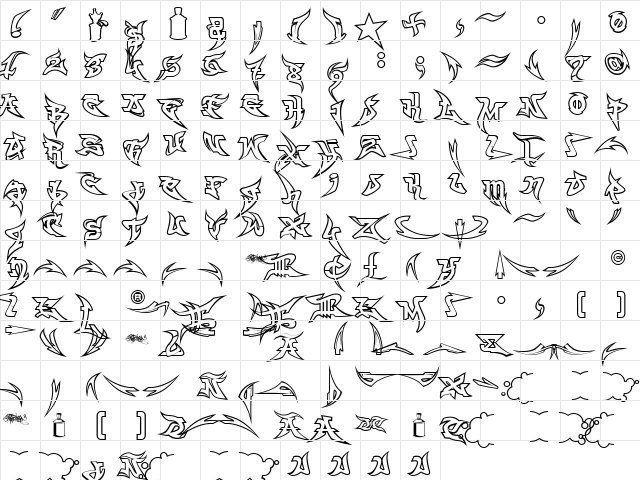
WildStyle-Fat Regular
Design Context for WildStyle-Fat Typeface
WildStyle-Fat is a composed and adaptable typeface that performs quietly and consistently across a wide range of design contexts.